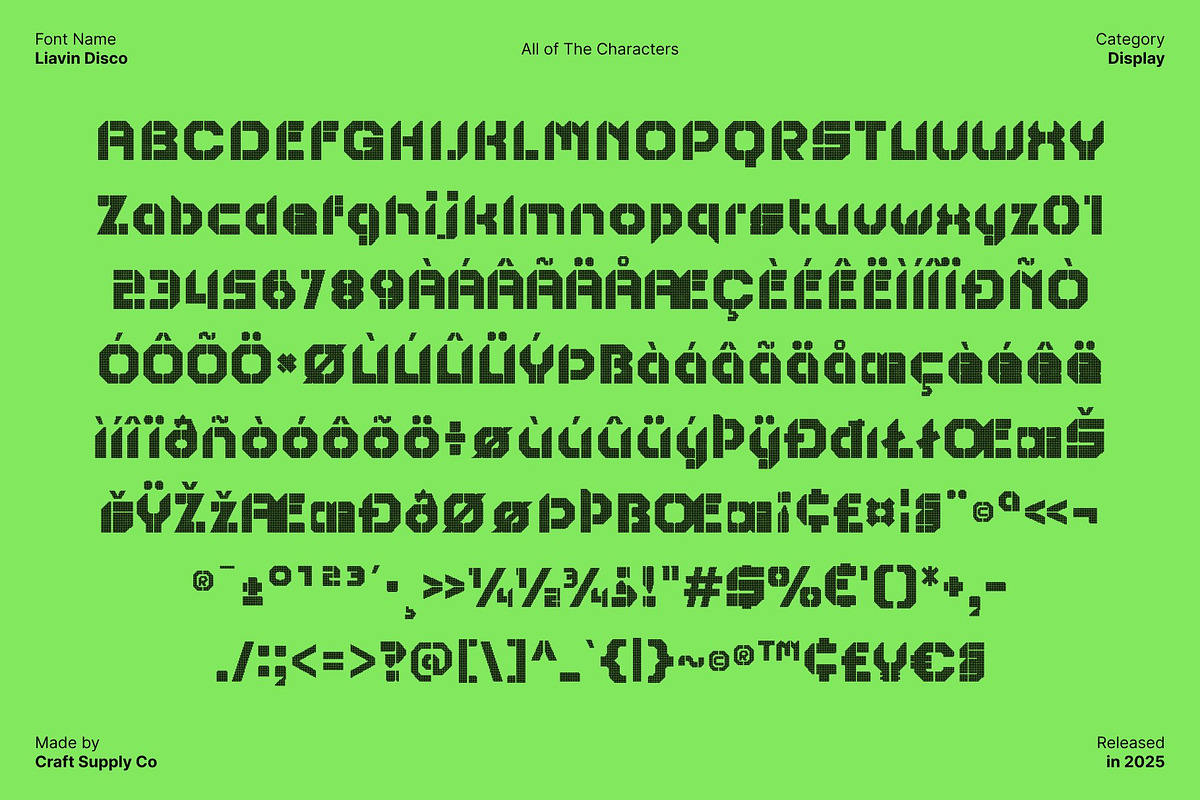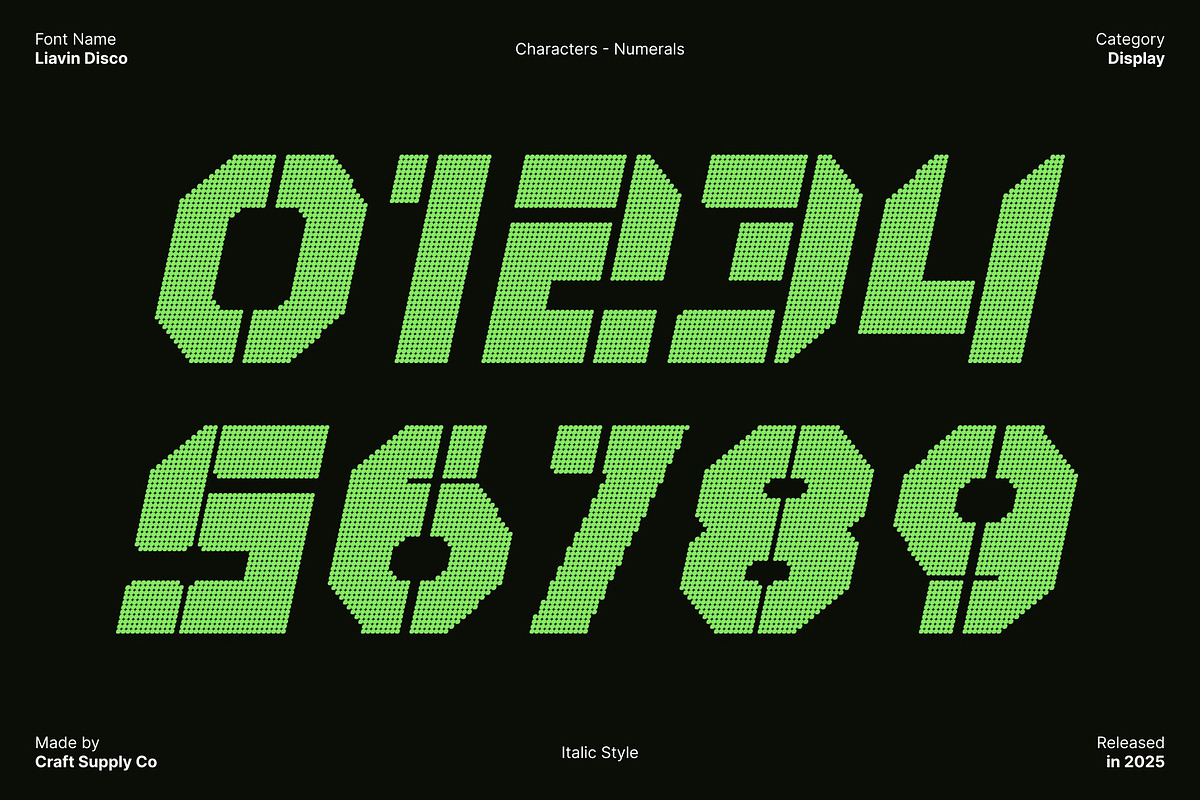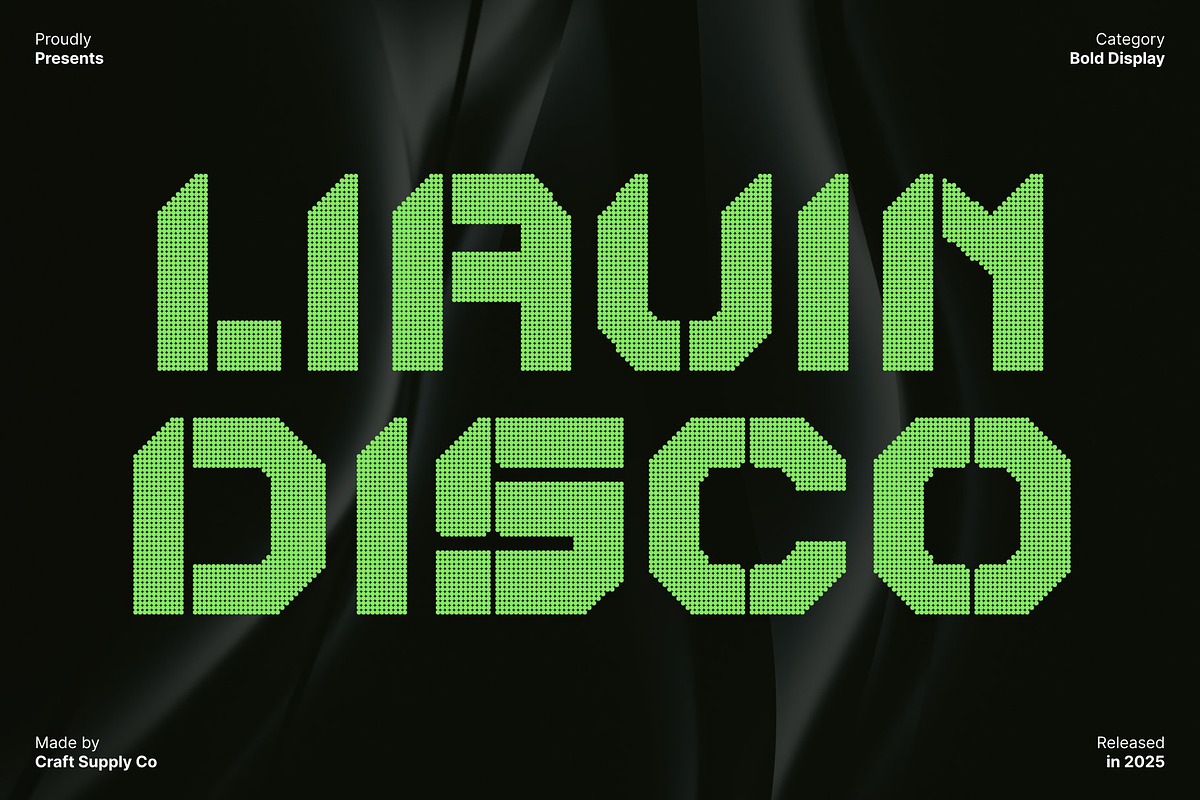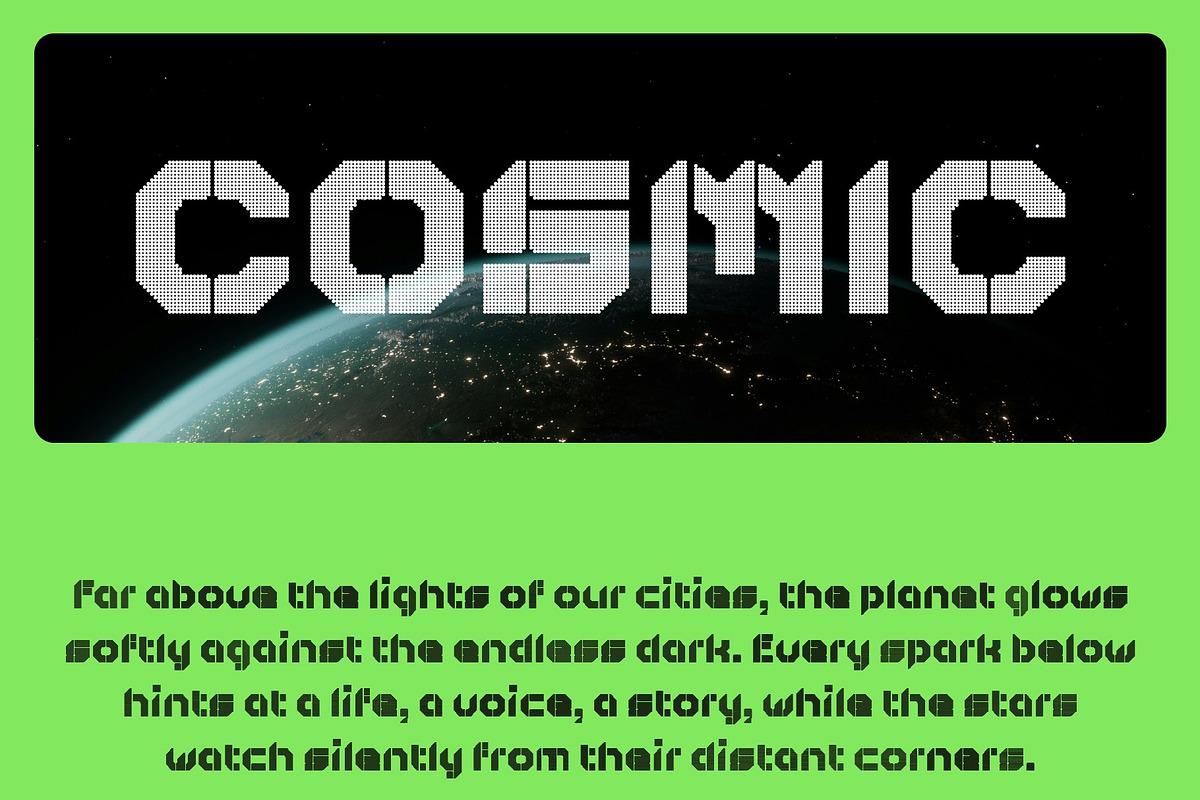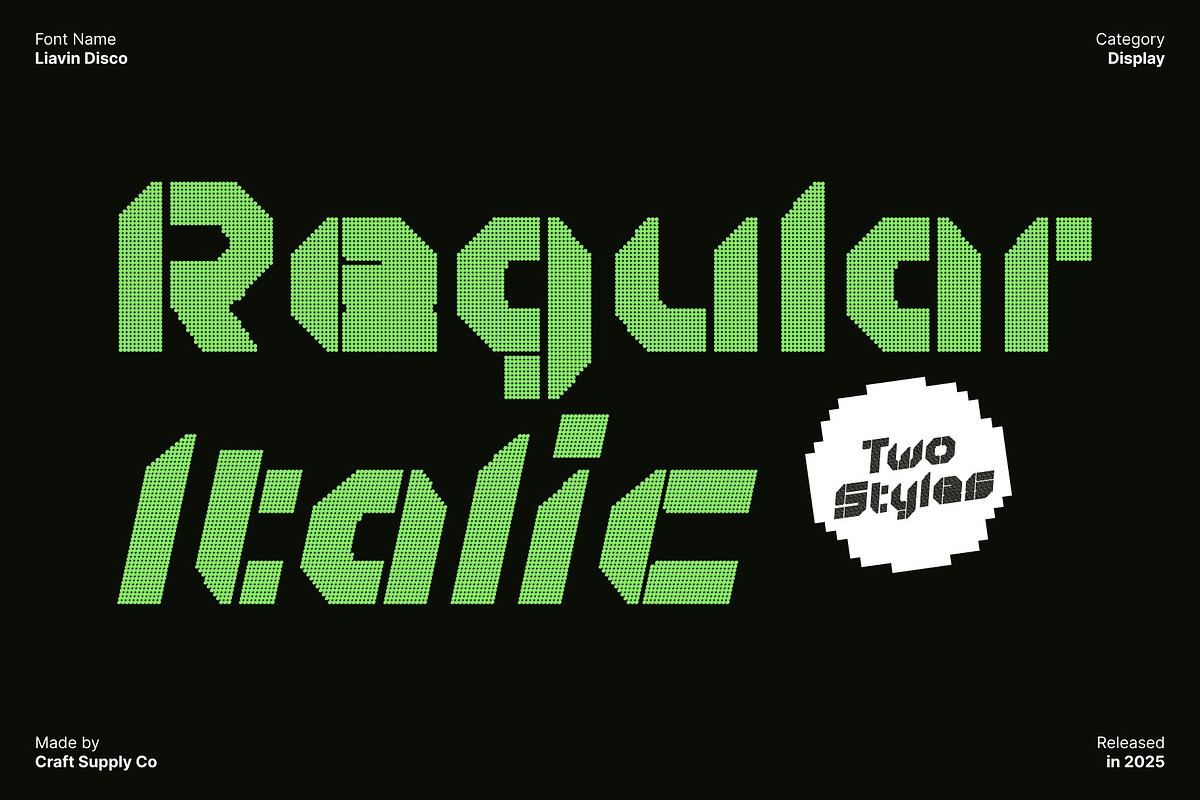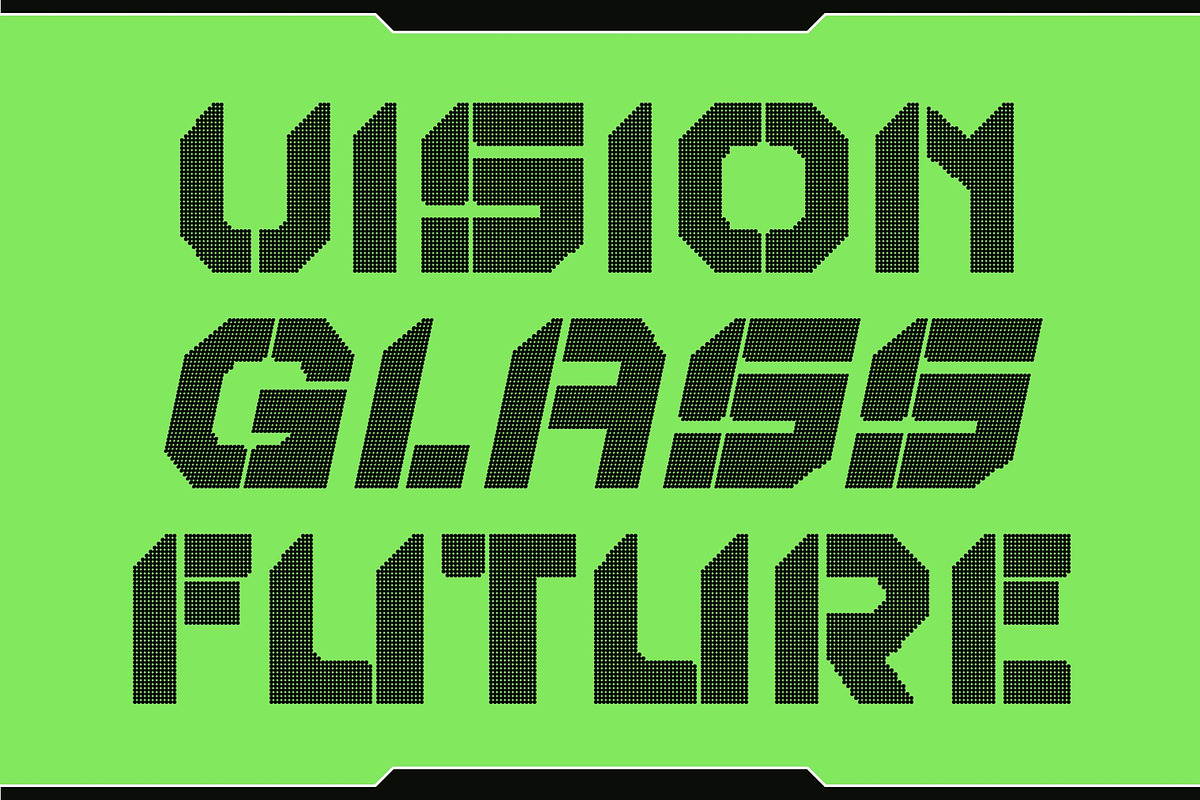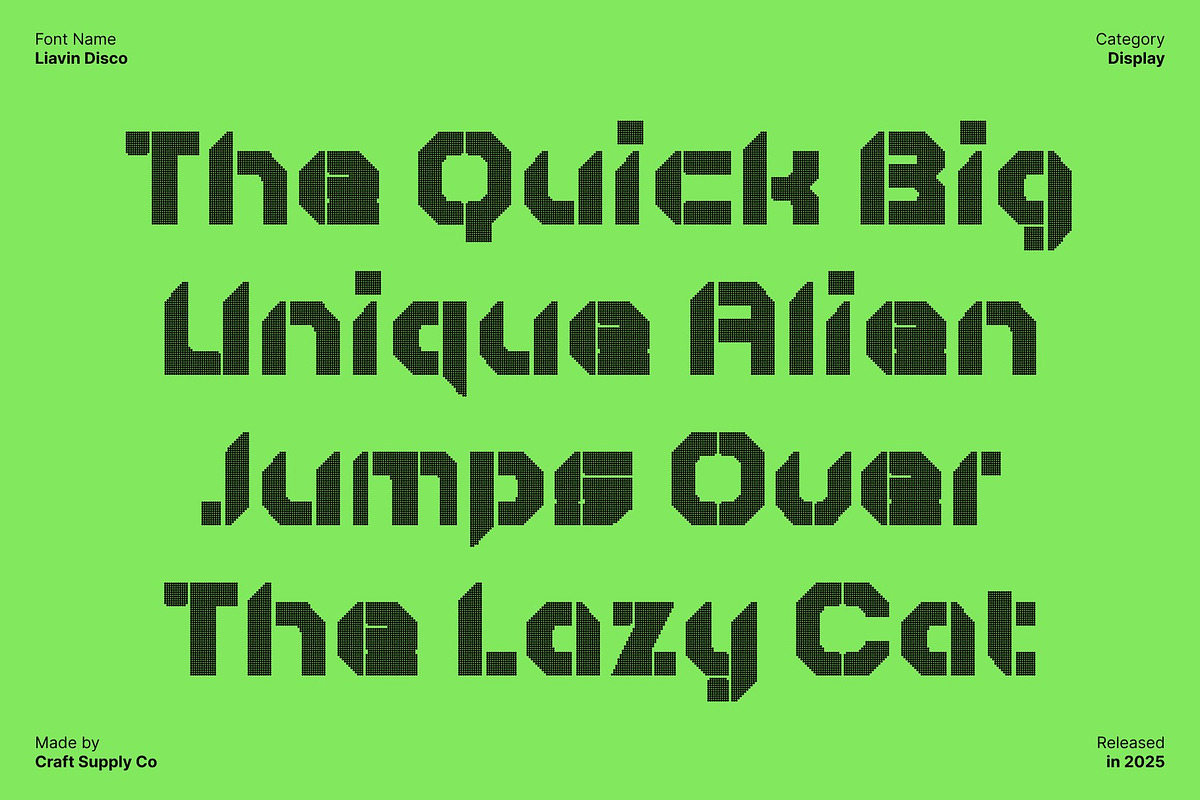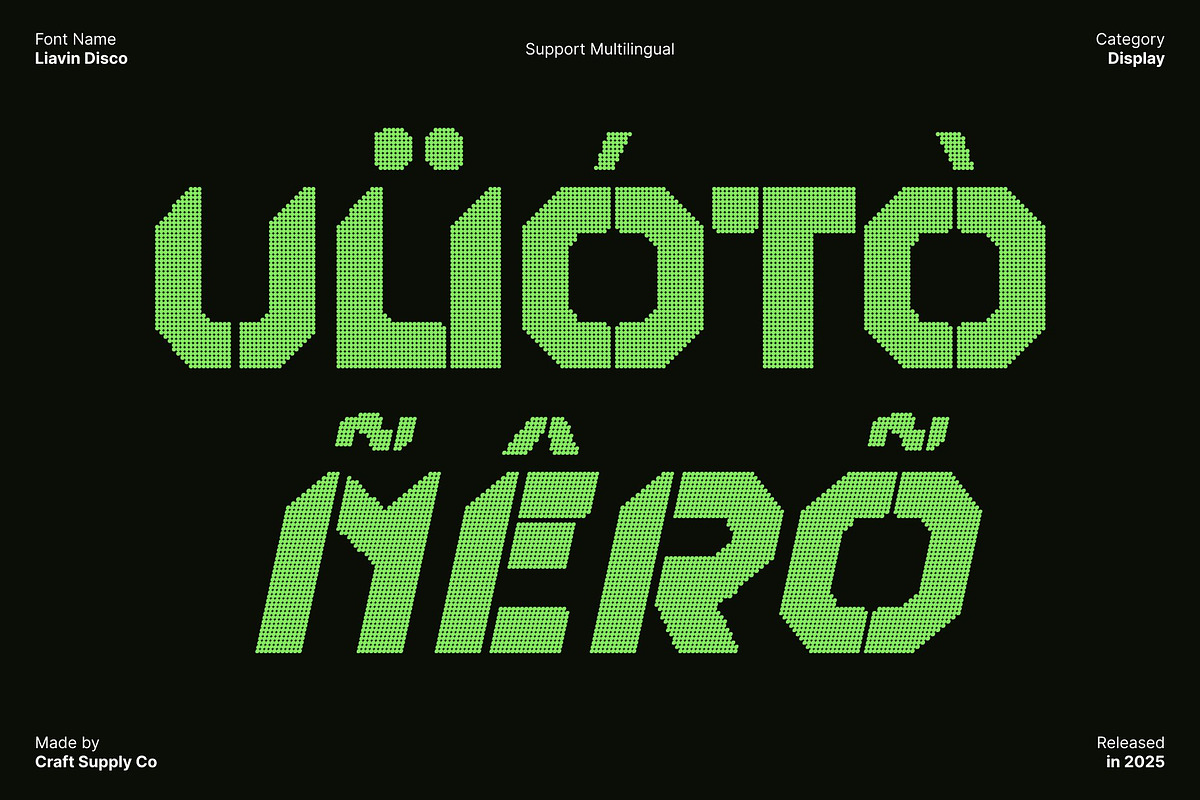
Liavin Disco
Liavin Disco – Futuristic Disco Display Font
Sci-Fi Geometry Meets Glamorous Retro Energy This is a futuristic display font that merges sleek sci-fi aesthetics with shimmering disco flair. Its techno-inspired geometry, combined with sharp edges and confident structure, creates a bold typographic style that instantly commands attention. The added disco influence gives the font a glamorous, radiant presence—perfect for designers seeking a blend of modern innovation and nostalgic sparkle.
Tech-Driven Forms for Bold Visual Impact Crafted with clean, angular shapes and advanced-looking contours, this font captures the essence of futuristic gaming and cyber-themed worlds. Its sharp construction delivers a powerful visual punch, ideal for projects that require a high-tech, cutting-edge feel.
Disco Style for a Glamorous Shine While heavily rooted in techno geometry, the font’s subtle disco elements add a sense of energy and movement. This glamorous twist brings a vibrant rhythm to your designs, making the font feel dynamic, stylish, and lively. The blend of glowing retro mood with futuristic sharpness gives this font a unique crossover style that feels both nostalgic and forward-thinking.
Perfect for Games, Movies, and Retro-Future Branding This font thrives in projects that demand intensity, personality, and a touch of nostalgia. Use it for video game titles, cyberpunk interfaces, movie branding, party posters, or retro-futuristic concepts. Its bold structure ensures readability even in complex layouts, while its disco attitude adds unmistakable charisma and attitude.
- Liavin Disco Regular
- Liavin Disco Italic